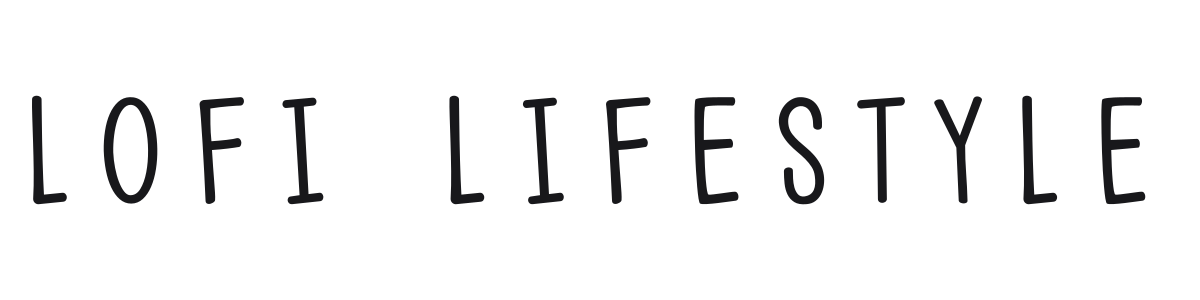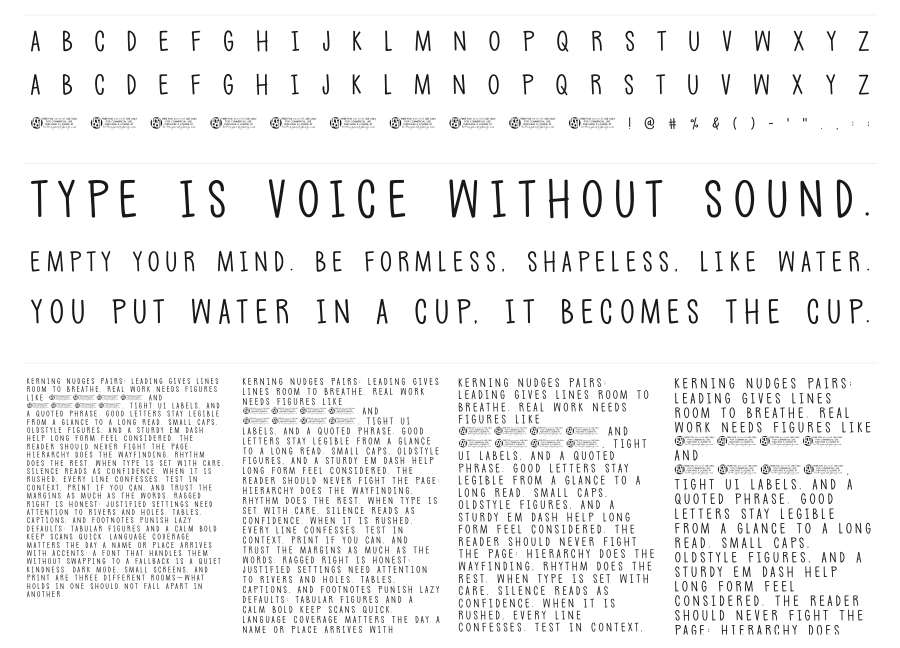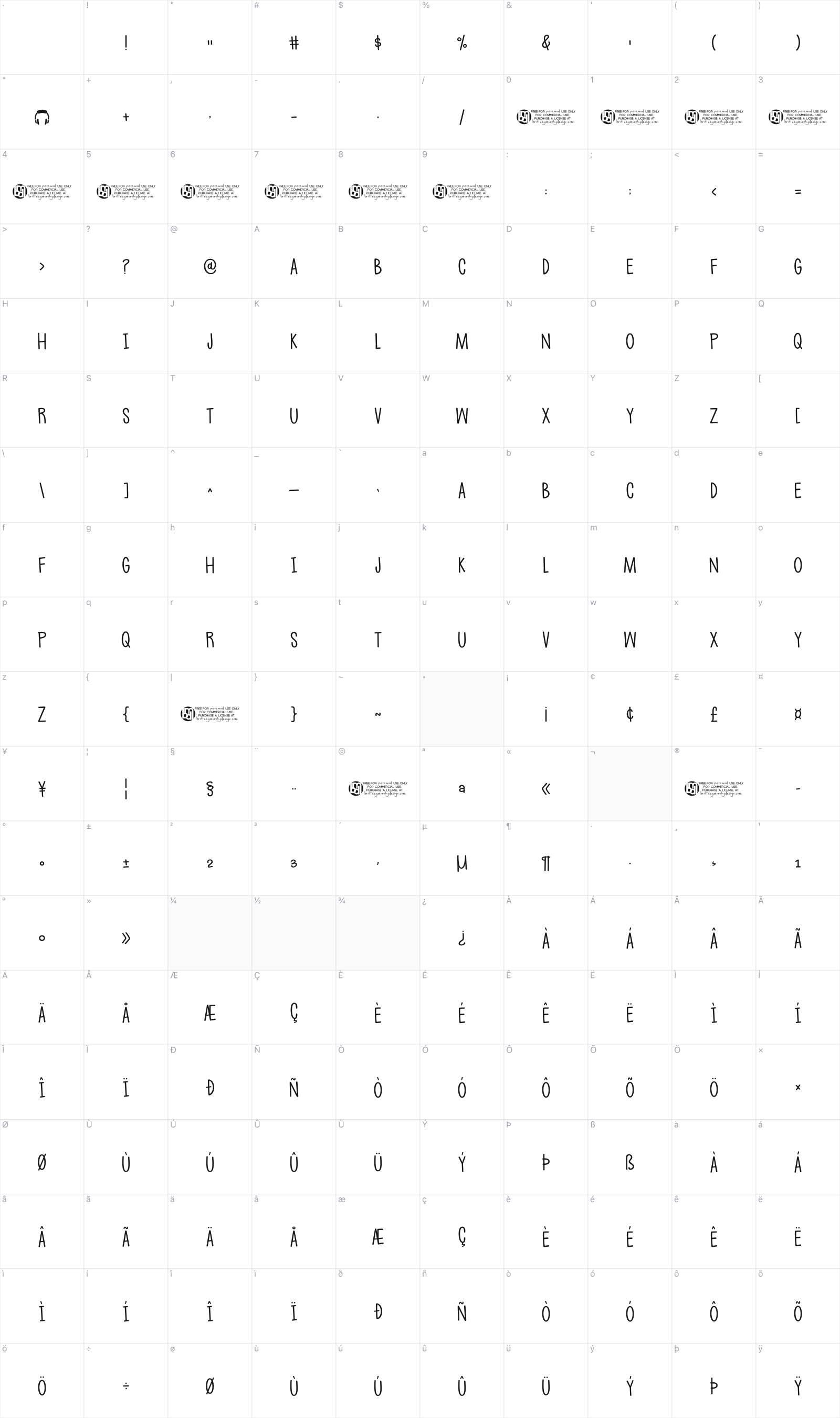
Lofi Lifestyle
Lofi Lifestyle is a hand-drawn display font with tall, narrow characters and a pleasantly wobbly stroke. The slight irregularity in each letter mimics casual hand-lettering without tipping into full handwriting territory. It fits the visual language of indie music, zine culture, and laid-back youth branding.